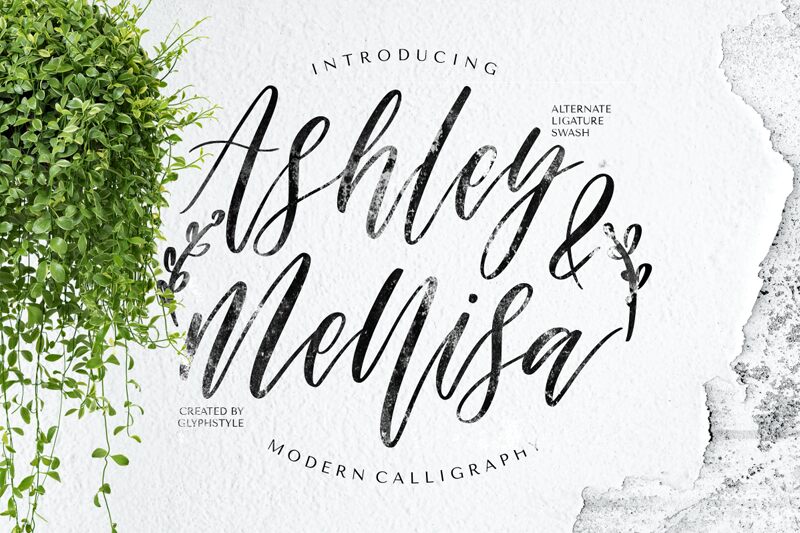
Ashley & Mellisa, designed by Glyphstyle, is a captivating modern calligraphy font that adds elegance and sophistication to any project. With its semi-light weight and condensed width, this font effortlessly balances readability with a touch of uniqueness. Perfect for wedding invitations, fashion editorials, or luxury branding projects, Ashley & Mellisa brings a refined charm to your designs. Its graceful curves and flowing strokes create an atmosphere of grace and beauty. Transform your projects into works of art with the exquisite Ashley & Mellisa font.